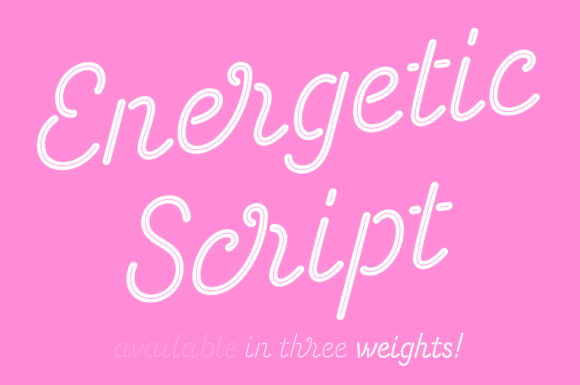
Welcome to the world of Energetic Script Font! Embark on a journey of creativity with this exquisite handwritten font, meticulously crafted by Studio Dot by Dot. Let your imagination run wild as you delve into the depths of Energetic Script's elegance and charm.
Indulge in the intricate details of each character, perfectly balanced and harmoniously flowing. Experience the beauty of this script font, as it effortlessly complements a kaleidoscope of designs, adding a touch of magic to your creative endeavors.
Picture your words dancing across the page, infused with the captivating energy of Energetic Script. Elevate your designs to new heights and watch as they come alive, mesmerizing your audience with their elegance and sophistication.
Whether you're a seasoned designer or just starting your artistic adventure, Energetic Script is your perfect companion. Its versatility knows no bounds, seamlessly adapting to logos, invitations, branding, social media posts, and so much more.
Unlock the boundless potential of Energetic Script and unleash your creativity. Let it guide you towards captivating designs that leave a lasting impression. Embrace the allure of this script font, and elevate your work to extraordinary heights!